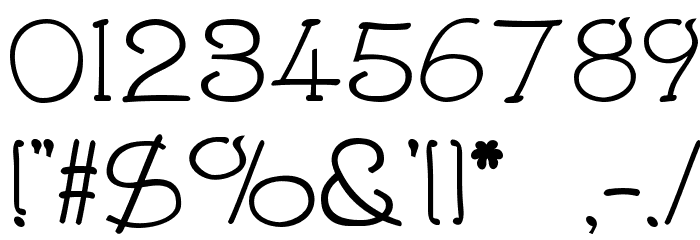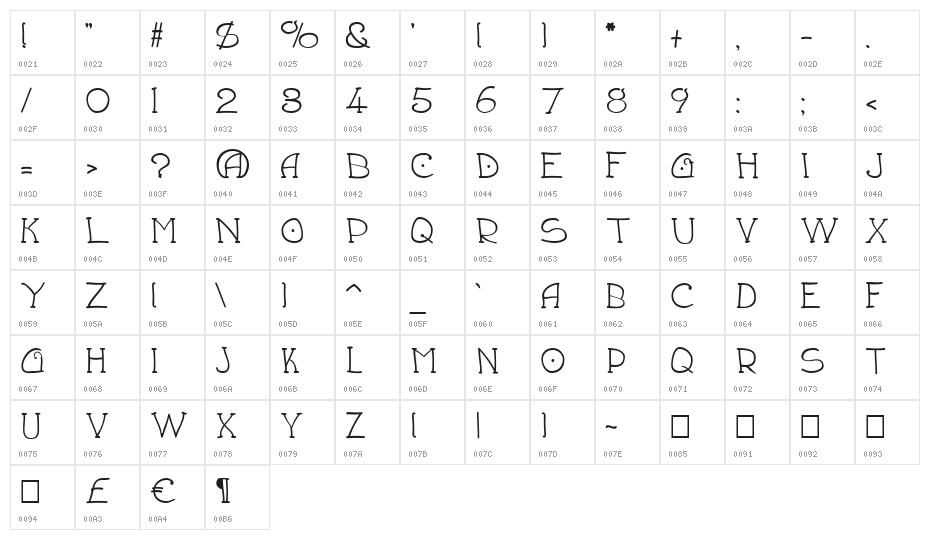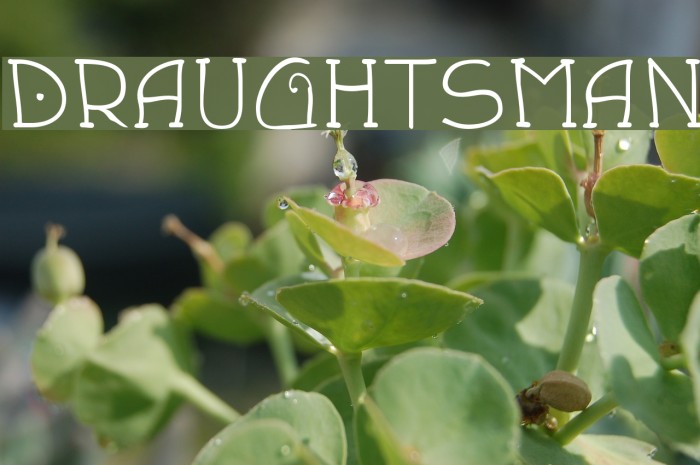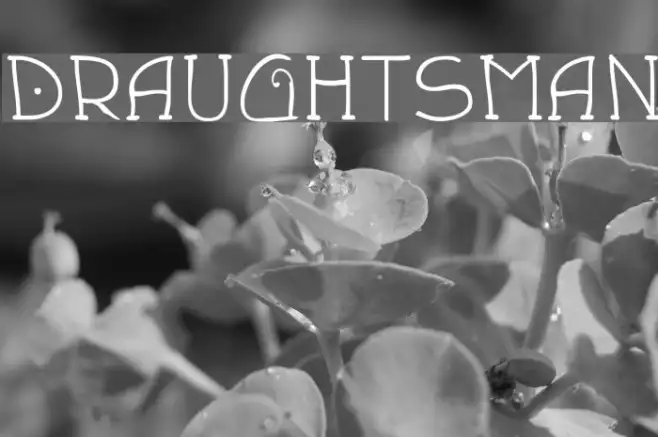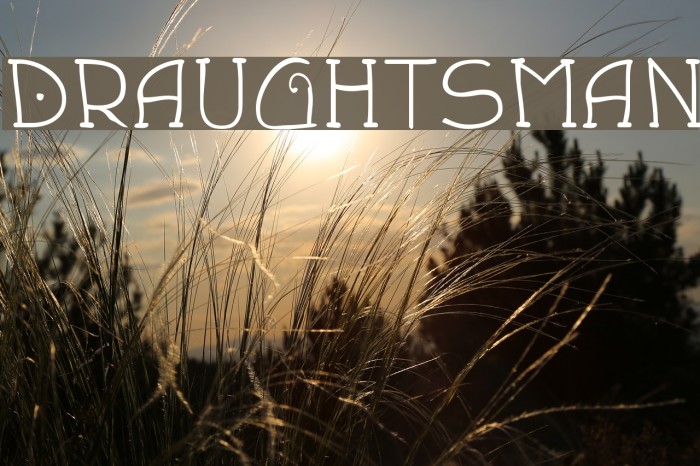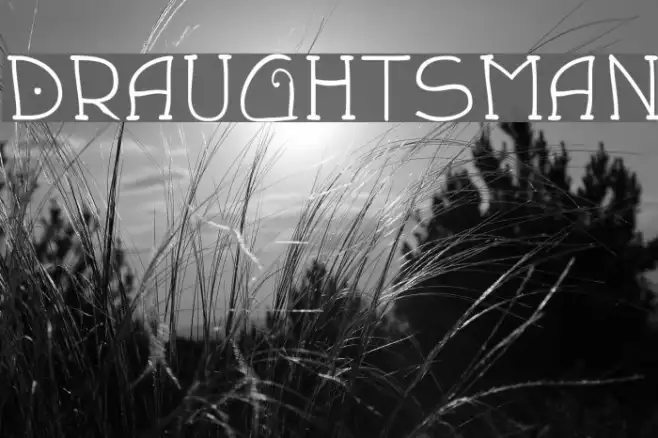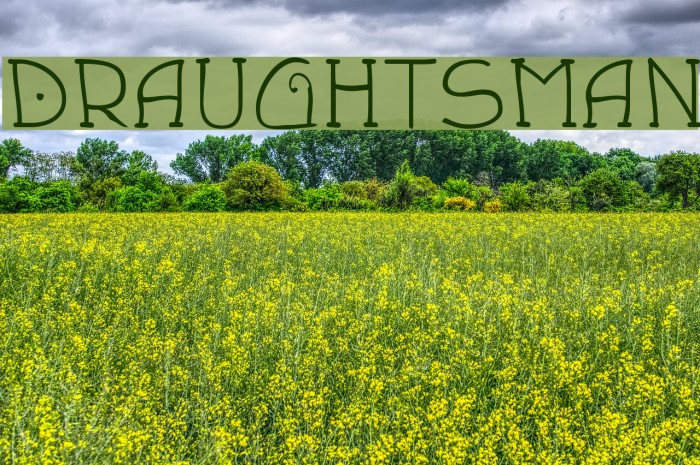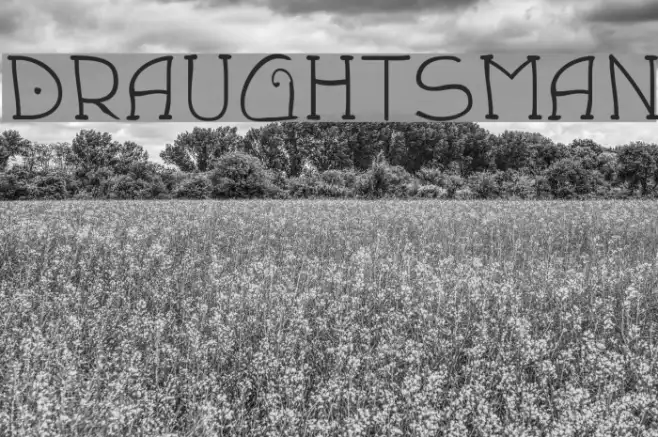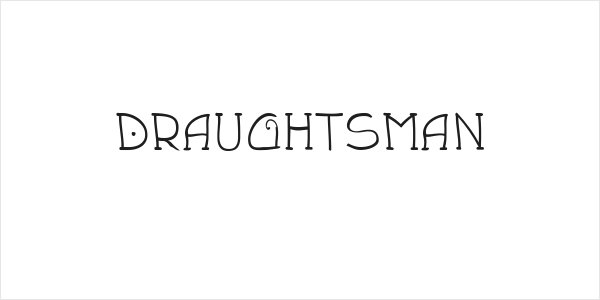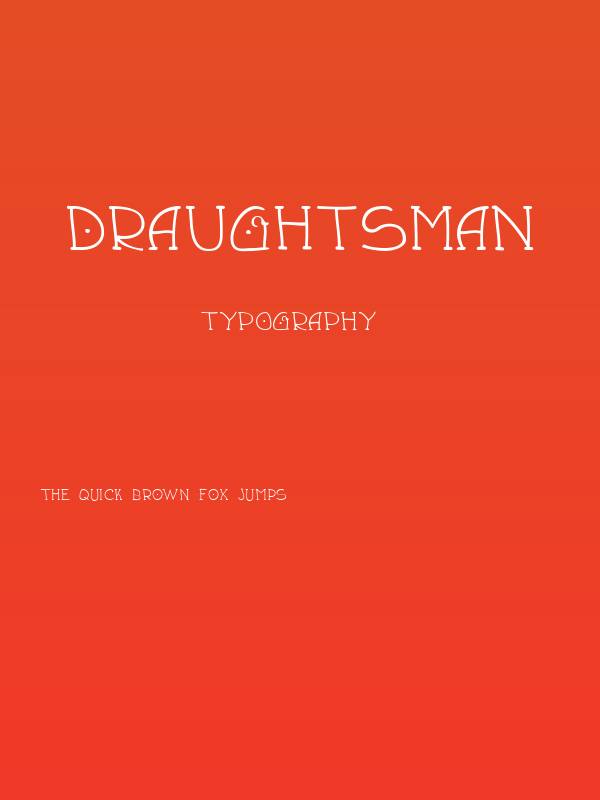
Draughtsman Font
Draughtsman Description
This font features a playful and whimsical design, characterized by its unique and quirky letterforms. Each character has a hand-drawn quality, with uneven lines and a slightly irregular structure that adds to its charm. The uppercase letters are bold and prominent, while the lowercase letters maintain a consistent style, offering a cohesive look. Numbers and special characters follow the same playful aesthetic, making the font versatile for creative projects. The overall appearance is informal and artistic, perfect for adding a touch of fun to any design.